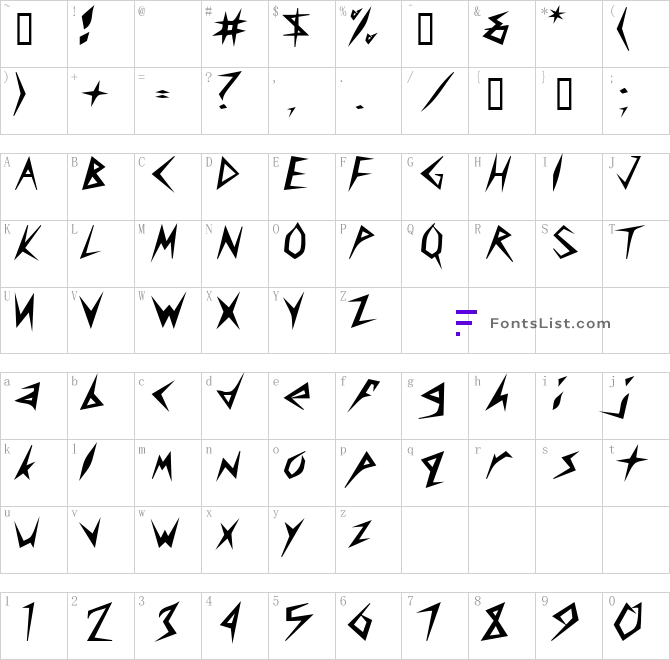
- Font Name:Amplifier
- Subfamily:Heavy
- Subfamily:SWFTE:Amplifier Heavy
- Full Name:Amplifier Heavy
Amplifier-Heavy.ttf is a very beautiful artistic font, Amplifier-Heavy.ttf is widely used in the design and printing of various books and pictures,Amplifier-Heavy.ttf has a strong visual impact,Amplifier-Heavy.ttf is a commonly used font in newspapers, magazines and books, and is used in posters, e-commerce Poster design, store design, logo design, font design and other fields.Amplifier-Heavy.